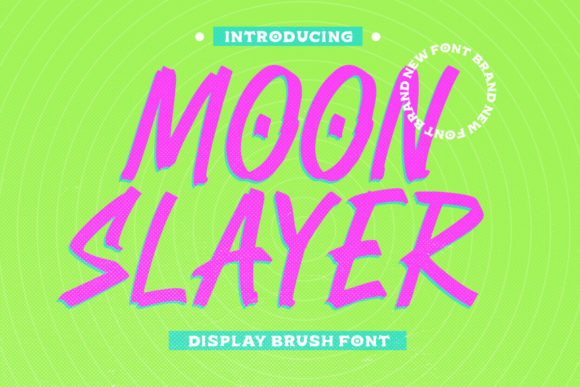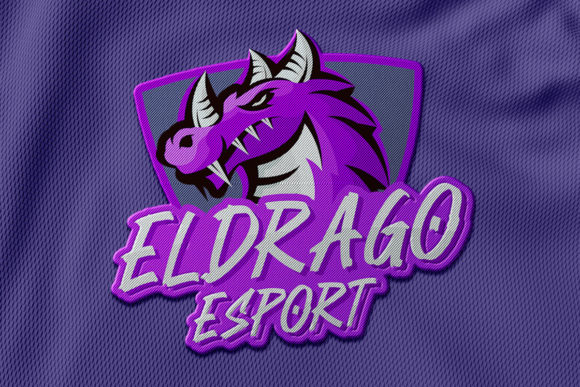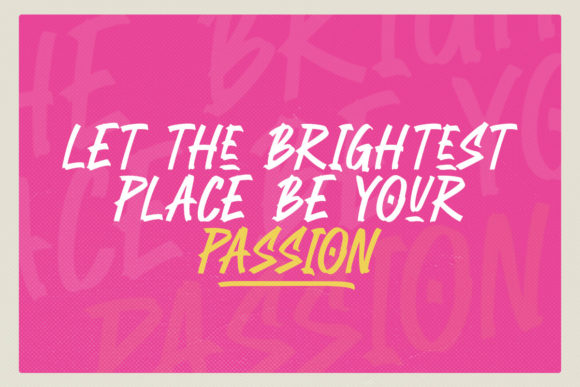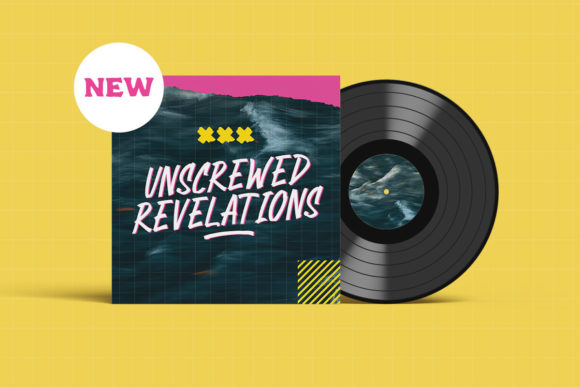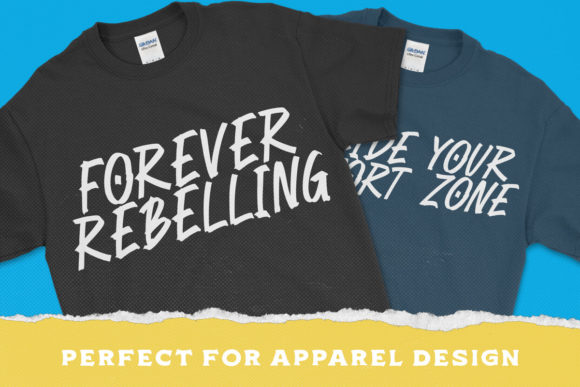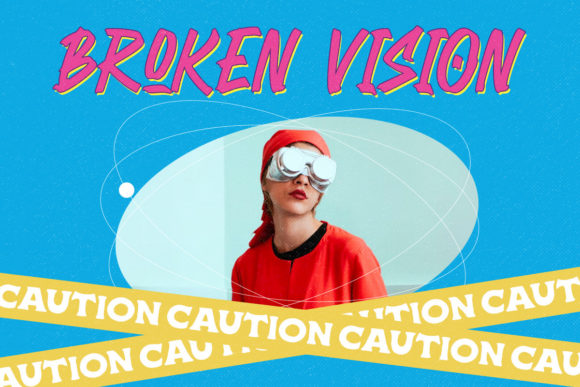
Introduction to Moon Slayer Font
Moon Slayer is a street art display brushed font.
Its strokes make this font look outstanding and a great fit for title designs It was perfectly made to be applied especially in logos, headline, signage and other various forms of advertising purpose.